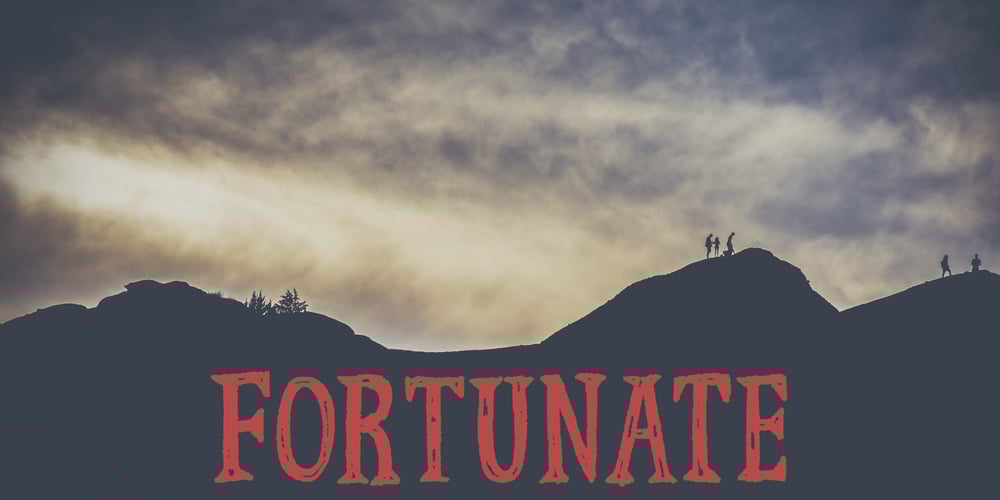
Fortunate Font Family was designed by Jakob Fischer and published by PizzaDude.dk. Fortunate contains 1 styles and family package options. I wanted to make something suitable as a bookcover for a something romantic or adventurous – or perhaps even both. As the proces continued, I found that the font was suitable for even more than that. You can easily use Fortunate for your postcards, invitations, menus, posters and many other things. You shouldn’t even be afraid to do your projects in foreign languages, because Fortunate is loaded with international characters. Besides that, every letter has got 5 different versions that automatically cycles as you type. Now that’s something enchanted!